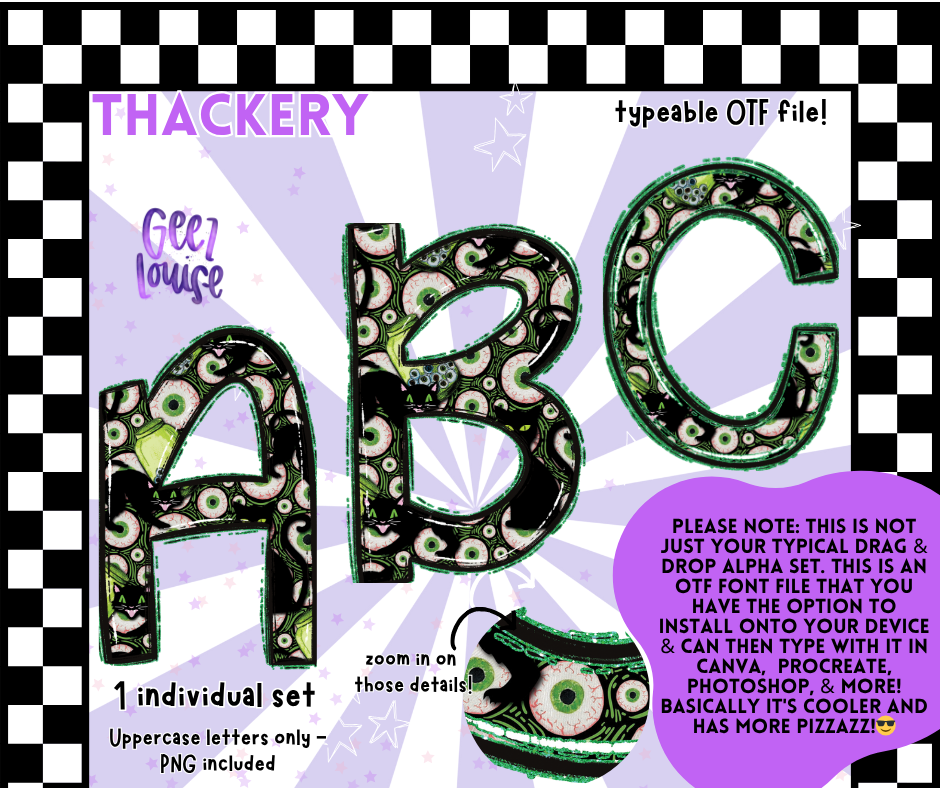
Thackery is dark, spooky, and downright hypnotic — with a name nod to everyone’s favorite cursed feline and a full set of bloodshot eyeballs staring right through your screen. 🖤👁️
👁️ Uppercase letters only
👁️ Grungy detail, neon outlines, and horror-inspired flair
Perfect for Halloween, haunted merch, or when you just need your fonts to give a little side-eye.